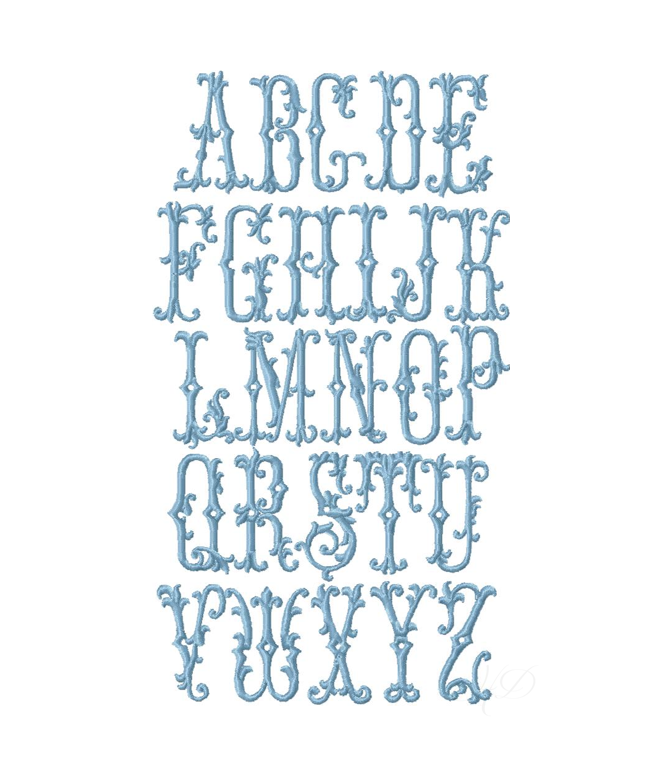
Filigree Scroll Type Embroidery Font 5x7
Discover the elegance of our Filigree Scroll Type Embroidery Font, designed specifically for enhancing your crafting and DIY projects. This package includes four versatile sizes—4", 4.5", 5", and 5.5"—all crafted in beautiful satin stitching, making them ideal for embroidery machine monogramming.